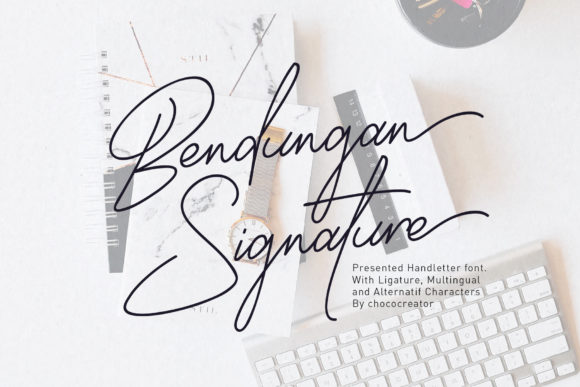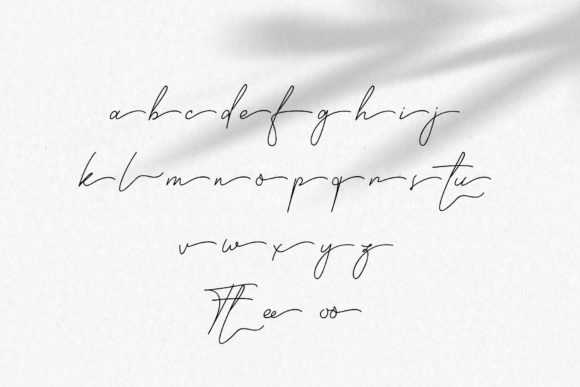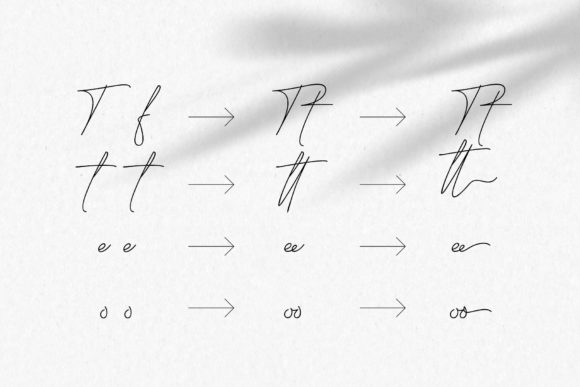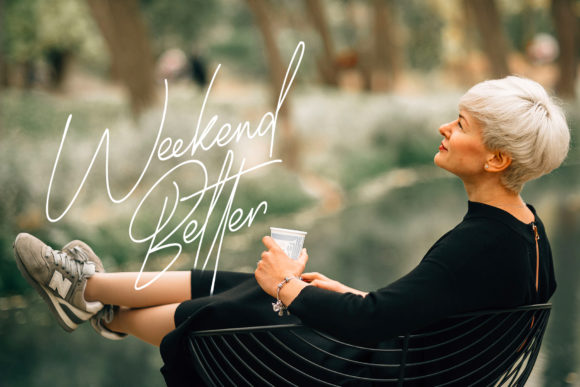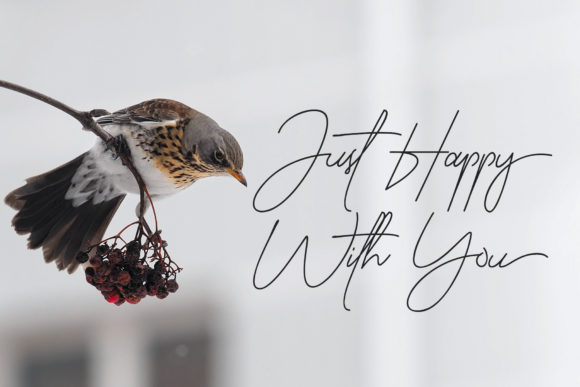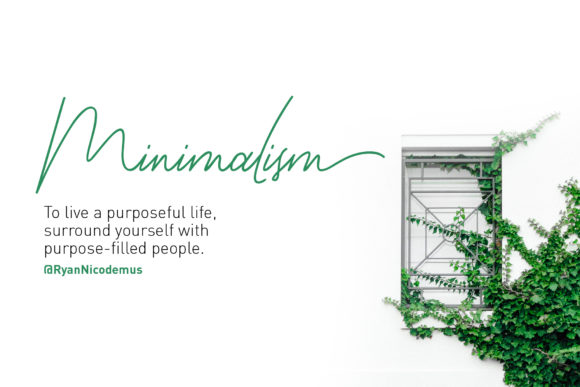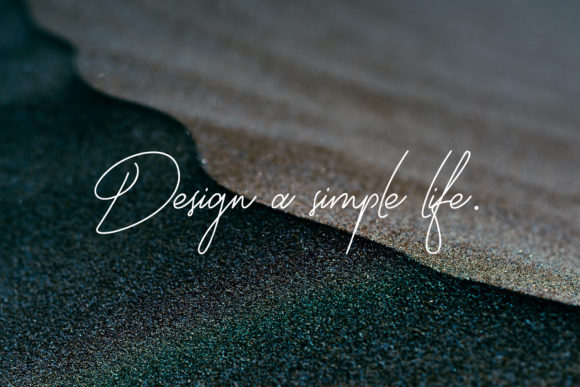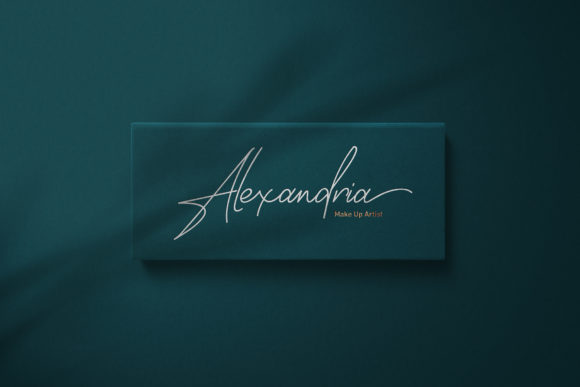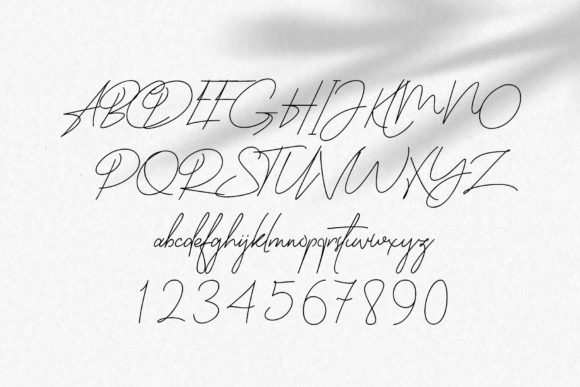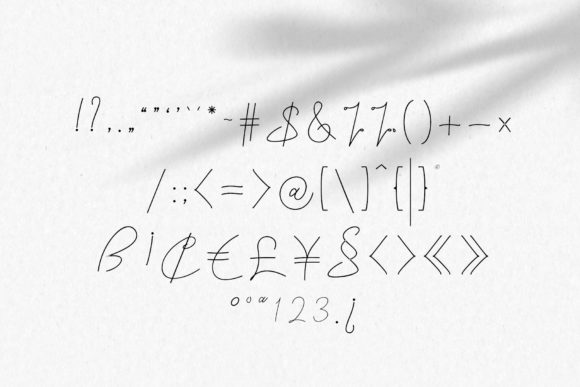
Bendungan Signature Font
About Bendungan Signature Font
Bendungan Signature is a sophisticated and stylish handwritten font that adds a touch of elegance and charm to any design. Its clean and neat letterforms make it a perfect choice for a wide range of projects that require a personalized and refined touch.
The font’s sleek and flowing appearance creates a sense of effortless grace and sophistication. Its smooth and balanced strokes give it a modern and contemporary look, making it suitable for both formal and informal occasions.
Bendungan Signature’s versatility allows it to shine in various applications. Whether used on wedding invitations, thank-you cards, greeting cards, or logos, the font adds a touch of elegance and class to the designs.
The font’s understated and refined style sets it apart from more decorative handwritten fonts, making it a standout choice for those looking to create designs with a timeless and sophisticated appeal.
With its neat and stylish appearance, Bendungan Signature evokes a sense of professionalism and attention to detail. It conveys a message of elegance and refinement, making it an ideal choice for projects that require a touch of sophistication.
Its clean and uncluttered appearance makes it a versatile font that pairs well with a variety of design elements, allowing it to complement the overall aesthetic of the project seamlessly.
Bendungan Signature’s personalized style allows you to create designs that feel uniquely tailored to the individual or occasion, adding a sense of intimacy and warmth to your work.
The font’s smooth and even strokes give it a sense of fluidity and motion, making it visually engaging and appealing to the eye.
In summary, Bendungan Signature is a neat and stylish handwritten font that exudes elegance and sophistication. Its versatility, clean appearance, and personalized style make it a perfect choice for a wide range of design projects, from wedding invitations to logos. Embrace the charm of Bendungan Signature and use it to create stunning and refined designs that leave a lasting impression on your audience.